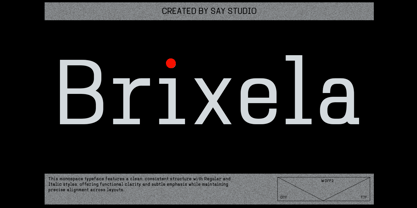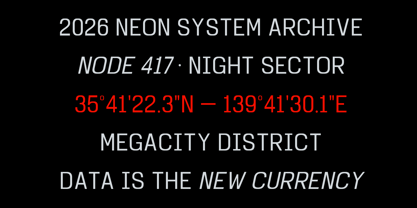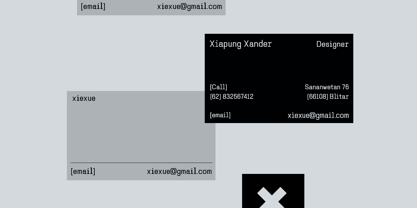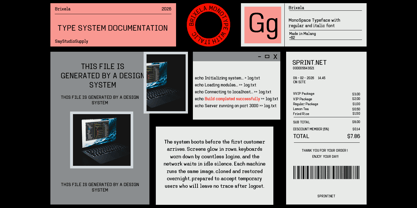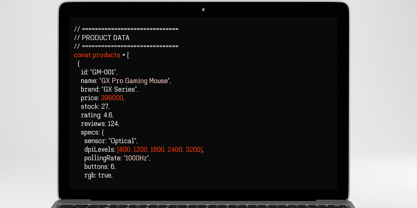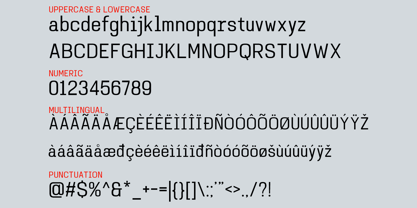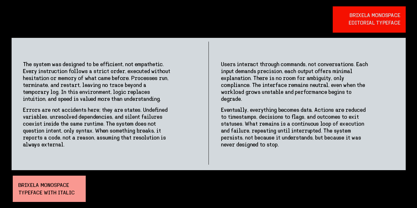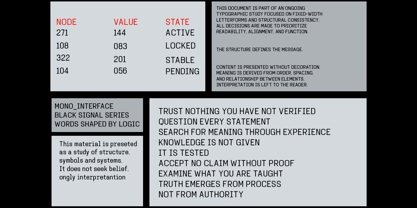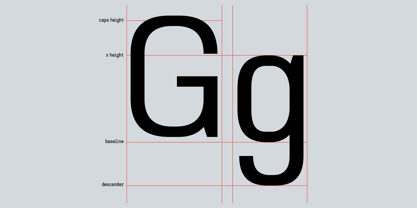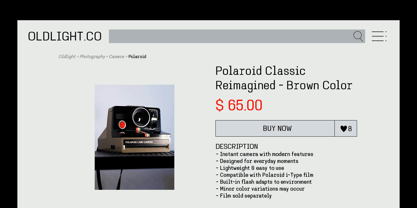
Brixela
La famille de polices Brixela a été conçue par Mussyayin et publiée par Say Studio. Brixela contient 2 styles et options de package familial. En savoir plus sur cette famille
Brixela is a modern monospace sans serif typeface designed for clarity, precision, and contemporary digital aesthetics. With its clean geometric structure and balanced proportions, Brixela delivers a sharp, technical, and highly functional appearance that feels both professional and modern. The consistent letter width ensures perfect alignment, making it ideal for layouts that require structure, rhythm, and visual harmony. Crafted for designers, developers, creative studios, and digital creators, Brixela offers exceptional versatility across a wide range of design applications. Whether you're creating tech branding, UI interfaces, editorial layouts, posters, motion graphics, or social media visuals, this typeface provides strong readability while maintaining a sleek, modern personality. The included regular and italic styles enhance flexibility, enabling expressive typography without sacrificing clarity. From futuristic branding and startup identities to web design, dashboards, code-inspired visuals, and minimalist posters, Brixela elevates projects with a clean, contemporary tone and a professional finish. Its structured form, subtle character details, and modern appeal make it a powerful choice for projects that demand precision, efficiency, and timeless visual impact. Thank You, Have a Good Day! Saystudio